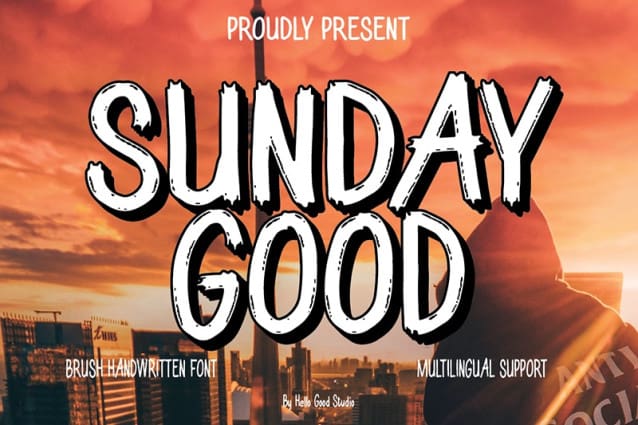
Sunday Good Font
Sunday Good Font is a chunky, comic, and cartoon display font. With its neat and joyful personality, this font will enhance any project you wish to create!